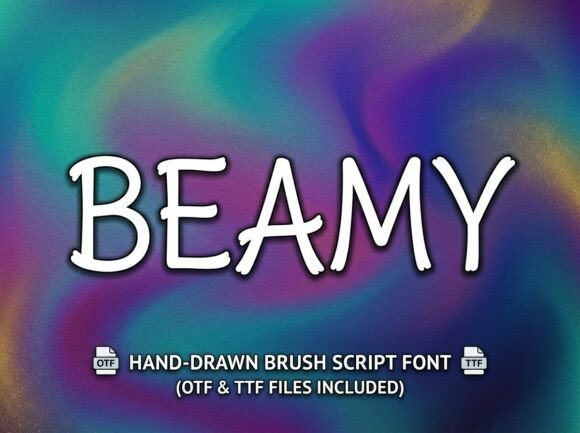
Introducing Beamy Font: A Stunning Decorative Display Font
Are you tired of using the same old fonts for your designs? Look no further than Beamy Font, a unique and artistic display font that’s sure to turn heads. This font is designed to be the center of attention, featuring bold and eye-catching elements that will elevate your designs to the next level.
What Makes Beamy Font Special?
Beamy Font is a decorative display font that’s perfect for creators who want to break away from the ordinary. Its strong visual personality and unique artistic elements make it ideal for bold headlines, artistic logos, and creative packaging. Whether you’re a designer, crafty DIY enthusiast, or entrepreneur, this font is sure to inspire your next project.
Key Features of Beamy Font
- Unique Artistic Elements: Beamy Font features one-of-a-kind artistic elements that will add a touch of elegance and sophistication to your designs.
- Strong Visual Personality: This font has a bold and eye-catching personality that’s sure to grab attention.
- Versatile: Beamy Font is perfect for a variety of design applications, including bold headlines, artistic logos, and creative packaging.
- Professional and Polished: Despite its bold and artistic nature, Beamy Font maintains a professional and polished finish that’s suitable for even the most high-end designs.
⚠️ IMPORTANT NOTE BEFORE PURCHASE: Beamy Font is an ALL-CAPS (Uppercase Only) display typeface. It does not include lowercase letters. It is specifically designed for high-impact headlines, logos, and decorative initials where every letter is a work of art.
Why Choose Beamy Font?
There are many fonts on the market, but Beamy Font stands out from the rest. Here are just a few reasons why:
- Uniqueness: Beamy Font is a truly unique font that’s sure to set your designs apart from the crowd.
- Quality: This font is designed to the highest standards, ensuring that it looks great in any design application.
- Versatility: Beamy Font can be used for a wide range of design projects, from bold headlines to artistic logos and creative packaging.
Design Inspiration
Beamy Font is perfect for a wide range of design applications, including:
- Headlines: Use Beamy Font to create bold and eye-catching headlines that grab attention.
- Logos: Create a unique and artistic logo that showcases your brand’s personality.
- Packaging: Add a touch of elegance and sophistication to your product packaging with Beamy Font.
- Signage: Use Beamy Font to create eye-catching signs and displays that showcase your message.
Beamy Font is a stunning decorative display font that’s sure to elevate your designs to the next level. With its unique artistic elements, strong visual personality, and versatility, this font is perfect for creators who want to break away from the ordinary. Whether you’re a designer, crafty DIY enthusiast, or entrepreneur, Beamy Font is a must-have addition to your font collection.